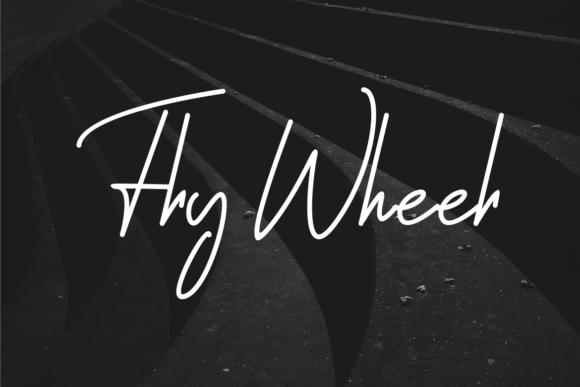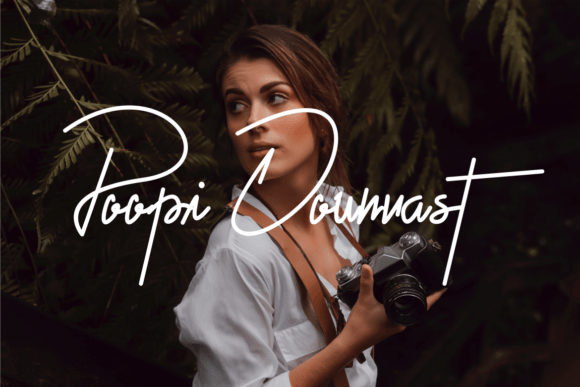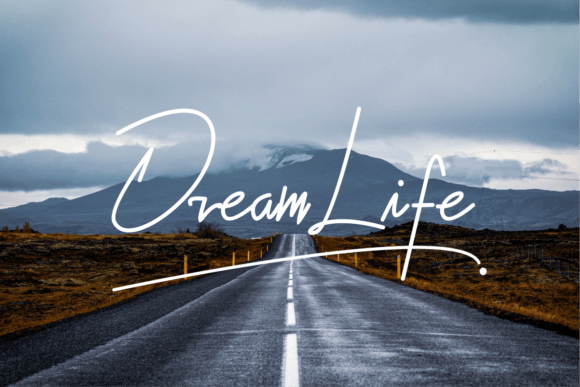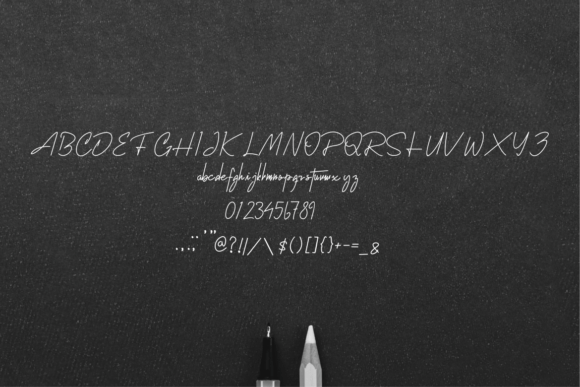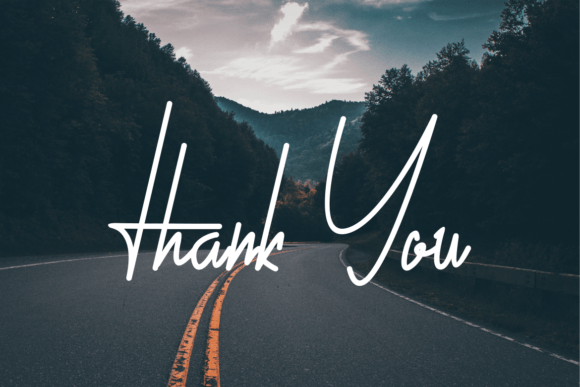
Introducing Antinkodan Font: Elevate Your Designs with a Cool and Modern Handwritten Signature Font
In the world of typography, a font can make or break a design. It’s the perfect blend of style, elegance, and personality that can elevate a creation from ordinary to extraordinary. If you’re a designer, craftsperson, or simply a font enthusiast, you’re in for a treat. Say hello to Antinkodan Font, a cool and modern handwritten signature font that’s about to become your new favorite asset.
The Perfect Addition to Your Font Library
Antinkodan Font is a versatile and sophisticated font that can be applied to a wide range of topics and projects. Whether you’re working on a logo, branding, packaging, or even a website, this font is sure to make a statement. Its unique blend of modernity and elegance makes it an incredible asset to your font library, allowing you to add a touch of personality to any creation.
What Makes Antinkodan Font So Special?
So, what sets Antinkodan Font apart from other fonts out there? Here are just a few of its standout features:
- Handwritten Signature Style: Antinkodan Font boasts a beautiful, handwritten signature style that’s perfect for adding a personal touch to your designs.
- Modern and Cool: This font is sleek, modern, and undeniably cool. Its unique character will add a fresh and youthful vibe to any project.
- Highly Versatile: Whether you’re working on a formal or informal project, Antinkodan Font is adaptable and can be used in a variety of contexts.
- Elegant and Sophisticated: With its flowing lines and beautiful curves, this font exudes elegance and sophistication, making it perfect for high-end designs.
How to Use Antinkodan Font in Your Designs
Antinkodan Font is incredibly easy to use and can be applied to a wide range of design projects. Here are a few ideas to get you started:
- Logos and Branding: Use Antinkodan Font to create a unique and memorable logo that reflects your brand’s personality.
- Packaging Design: Add a touch of elegance and sophistication to your packaging designs with this beautiful font.
- Website Design: Use Antinkodan Font to create stunning headings, titles, and even body text that will elevate your website’s design.
- Stationery and Print Design: This font is perfect for creating beautiful stationery, business cards, and other print materials.
Tips for Getting the Most Out of Antinkodan Font
To get the most out of Antinkodan Font, here are a few tips to keep in mind:
- Experiment with Font Sizes: Play around with different font sizes to find the perfect balance for your design.
- Pair it with Other Fonts: Antinkodan Font pairs well with a variety of other fonts, so don’t be afraid to experiment and find the perfect combination.
- Use it to Create Contrast: Use Antinkodan Font to create contrast in your design and draw attention to specific elements.